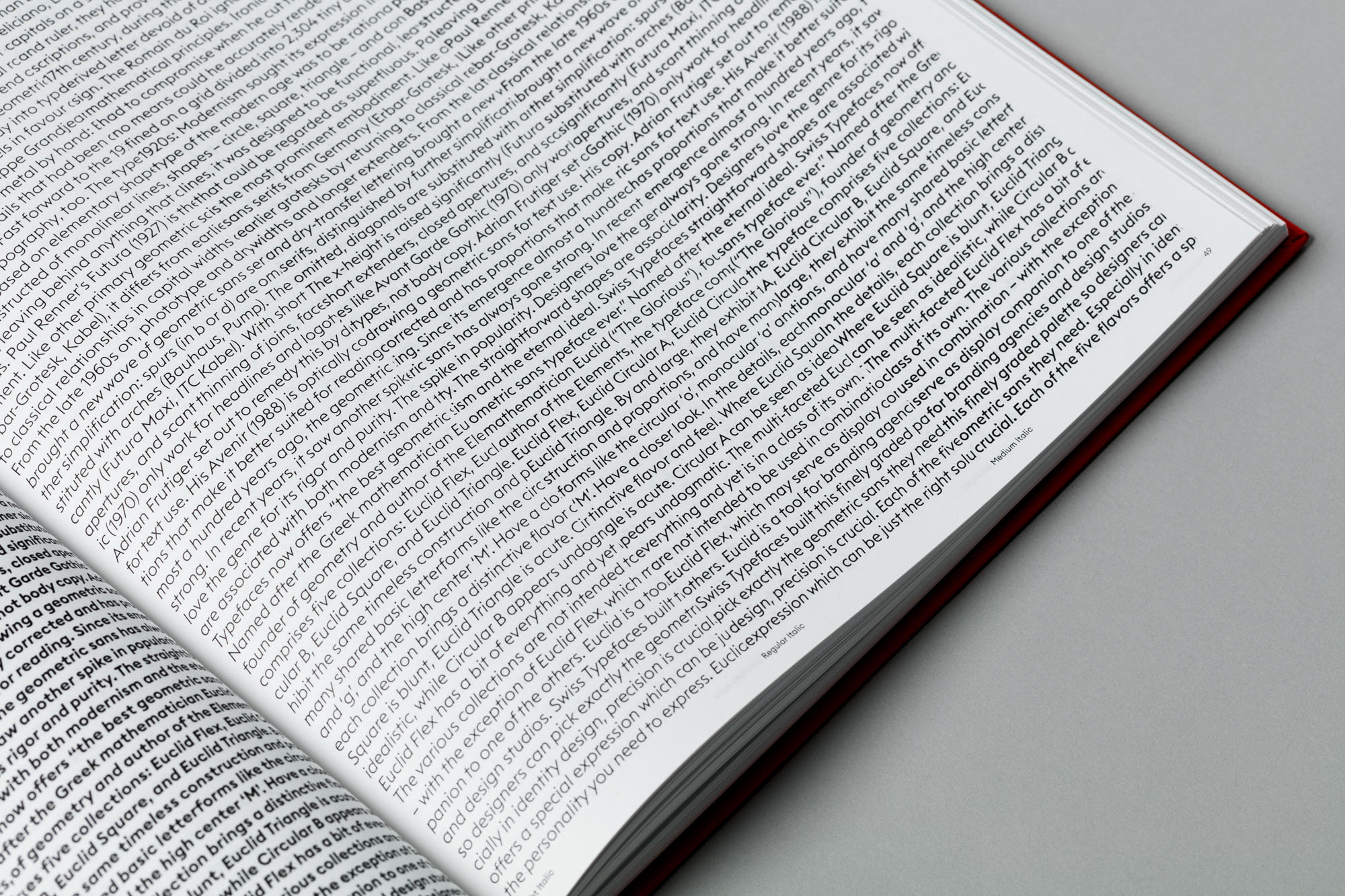
Euclid—Typeface Mystery No. 1
Typeface Monograph by Swiss Typefaces
More than three years after the release of their first typeface monograph, Swiss Typefaces is proud to announce the launch of a new book. Euclid—Typeface Mystery No.1 was conceived and designed by Hubertus Design. The typographic tome of 264 pages is a feast for the eyes, built around a story that will send a chill down your spine.
For their second book, they invited Hubertus Design to work on the concept and art direction. The Zurich-based studio was given carte blanche for a book that would showcase the many facets of Euclid, their ultimate geometric sans typeface. And they lived up to their name as leading voice in innovative book design. They came up with an idea that transcends the expectations—including our own. You might assume that a publication devoted to a typeface was one big specimen. Like our previous SangBleu Typeface: The King, His Court, The Explorer & The Gift, the new book is so much more. Euclid — Typeface Mystery No.1 is a multidisclipinary triptych, constructed from three main components that are skillfully interwoven with each other: At the heart of the book is A Snippet of the Clear Night Sky, a mystery novel that Matthias Michel has authored specifically for this purpose. Hubertus Design brought in Matthieu Gafsou. The Franco-Swiss artist contributed Eerie Indeed, a series of photographs that augment the book with a rich pictorial layer. And then there’s the Euclid Typeface, which is used to set all text. The combined outcome is just as beautiful as it’s disturbing, and a creation that we find difficult to categorize.
Euclid—Typeface Mystery No. 1
Fonts: Euclid Circular A, Euclid Circular B, Euclid Square, Euclid Triangle, Euclid Flex, and Euclid Stencil (designed by Emmanuel Rey / Swiss Typefaces), Euclid Mono Vanguard (designed by Emmanuel Rey, Quentin Schmerber / Swiss Typefaces)